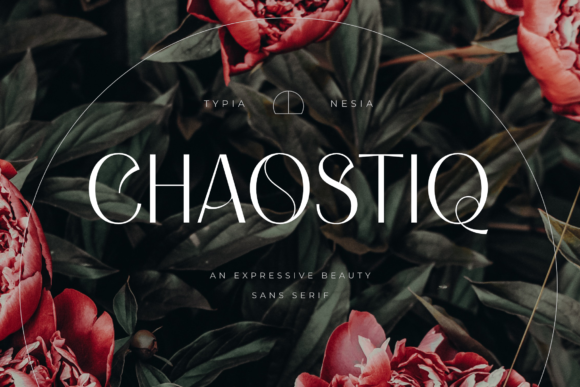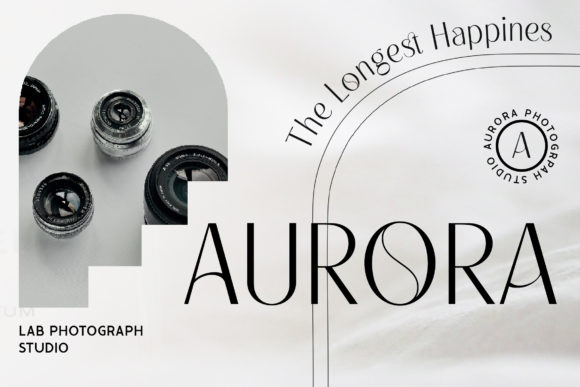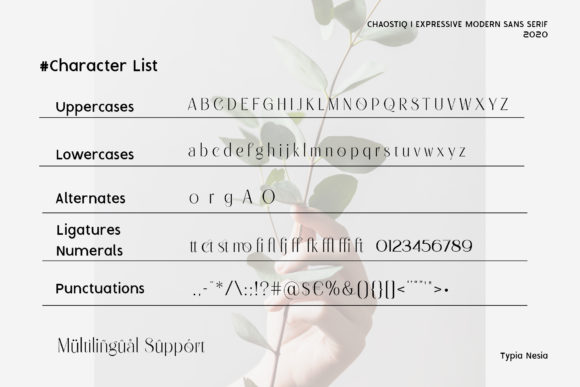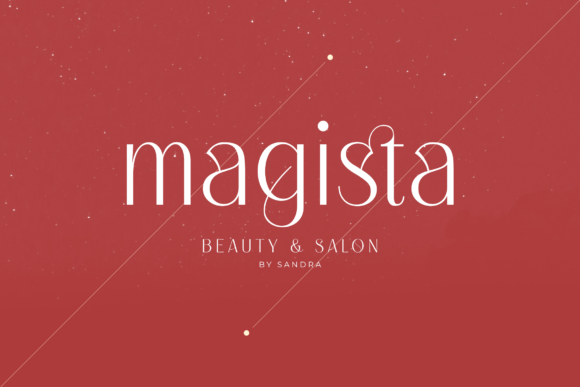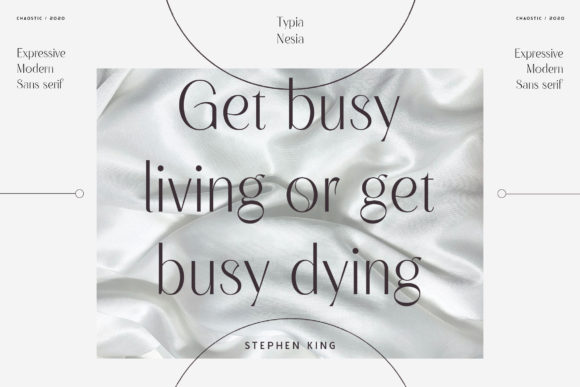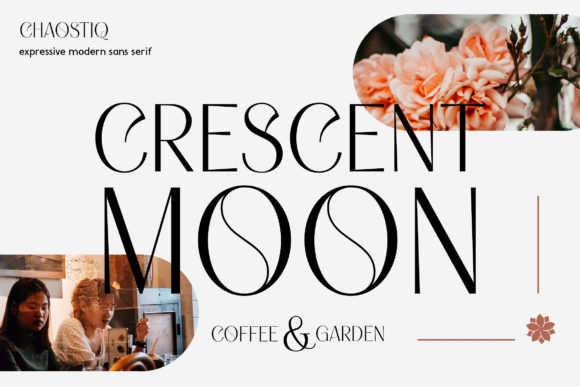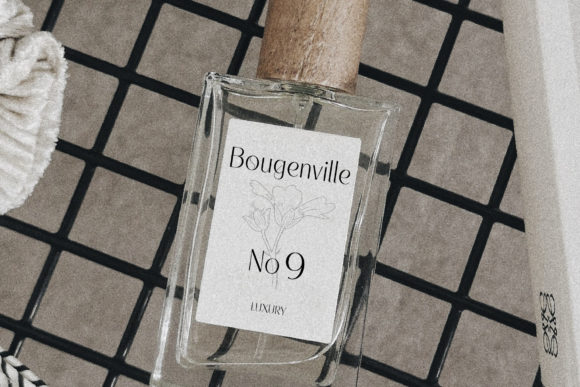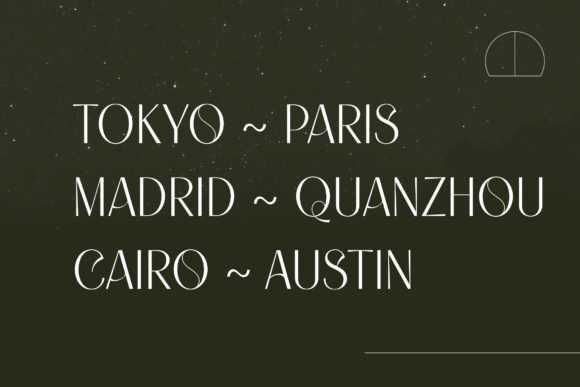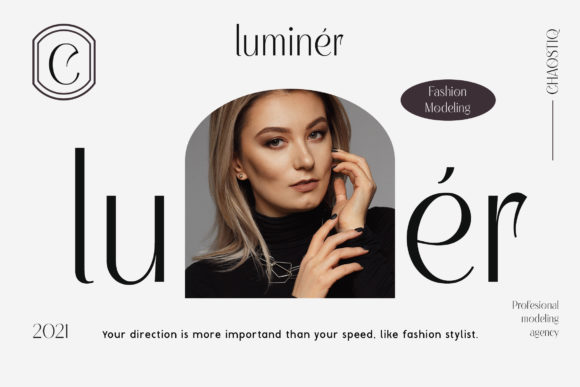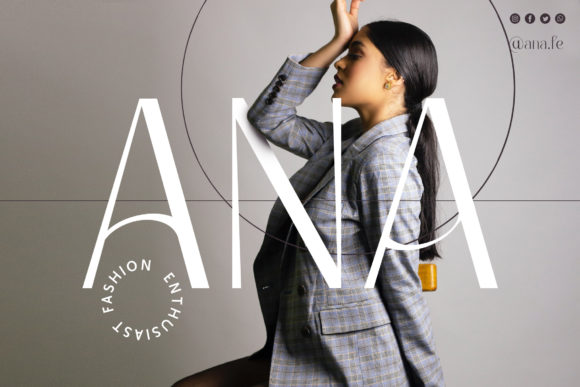
Chaostiq
Chaostiq: An Elegant and Stylish Slab Serif Font
Chaostiq is a distinctive slab serif font that combines elegance with a clean, stylish design. This versatile typeface offers designers a powerful tool for creating impactful typography across a wide range of creative projects.
Key Features of Chaostiq
• Elegant Design: Features refined letterforms that exude sophistication.
• Stylish Aesthetic: Offers a modern and trendy look that resonates with contemporary design trends.
• Well-Readable Characters: Ensures clarity and legibility across various applications.
• Clean and Neat Style: Provides a polished appearance suitable for professional designs.
• Slab Serif Structure: Incorporates the characteristic thick, rectangular serifs typical of slab serif fonts.
• Versatile Application: Suitable for a wide range of projects, from print to digital media.
Ideal Uses for Chaostiq
Chaostiq’s unique characteristics make it particularly well-suited for:
• Magazine titles and headlines
• Book covers and interior layouts
• Product packaging design
• Banner advertisements
• Branding and logo creation
• Website headers and digital content
When incorporating Chaostiq into your designs, consider the following tips:
• Use for both headlines and short blocks of text to showcase its elegance and readability
• Experiment with different sizes to highlight the font’s stylish details
• Consider pairing with complementary sans-serif fonts for body text to create contrast
• Take advantage of its clean style in projects where you want to convey sophistication and modernity
Chaostiq is an excellent choice for designers looking to add an elegant and stylish slab serif font to their typographic toolkit. Its well-readable characters and clean style make it stand out in the world of typography. Whether you’re working on logo designs, creating layouts for magazines, or developing packaging for products, Chaostiq offers the perfect blend of elegance and readability.
Add Chaostiq to your creative projects and explore how it can elevate your designs with its stylish and neat appearance. From eye-catching magazine titles to sophisticated product packaging, this font provides the tools to create impactful and memorable typography that resonates with audiences seeking a touch of elegance and modernity.